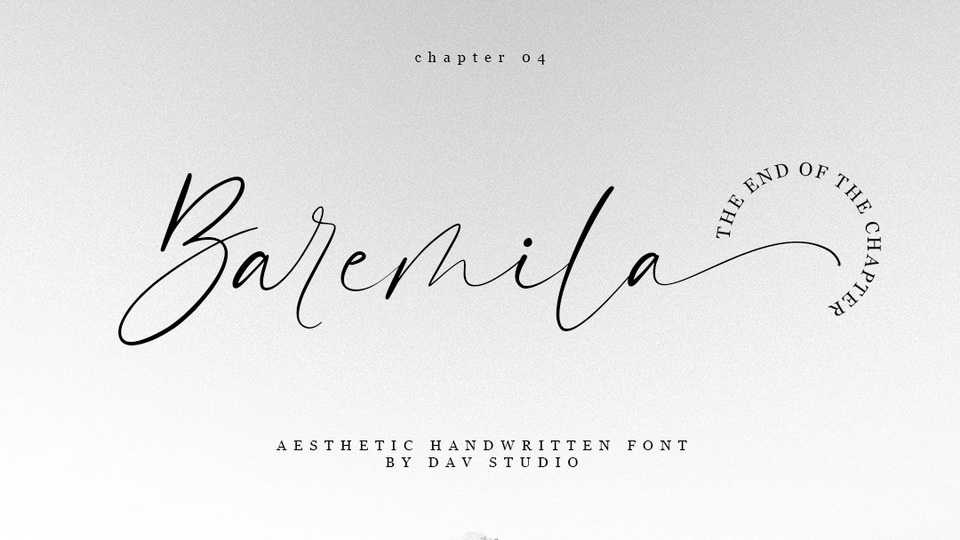
Download Baremila font, a soft, smooth, and lovely handwritten typeface. With the ligatures and swashes, Baremila will give a classy impression to every design that you will create.
Designer: Dav Studio